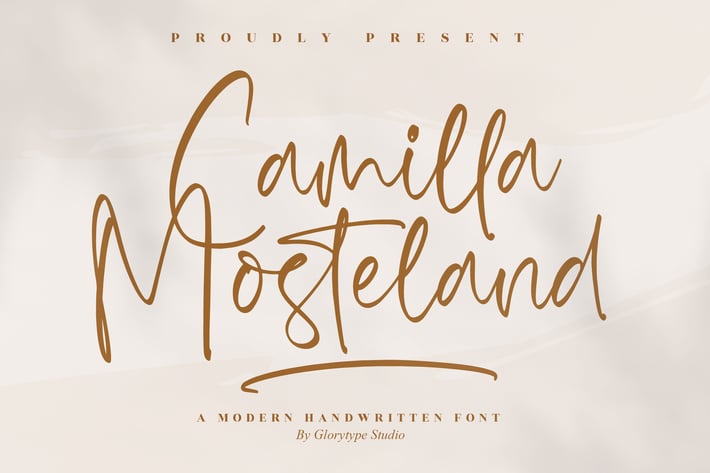
Camilla Mosteland Handwritten Font
Camilla Mosteland is a modern handwritten script that marries effortless pen flow with elegant contrast. Its sweeping ascenders, generous loops, and natural baseline deliver a refined but friendly voice that reads beautifully at both display and sub-headline sizes. Use it to add warmth, personality, and a premium, boutique feel across digital and print projects—without sacrificing legibility. From brand signatures to romantic stationery, Camilla Mosteland brings a polished, handcrafted touch.
+ Uppercase & lowercase characters
+ Numbers & punctuation
+ Beautiful ligatures & stylistic alternates
+ Smooth kerning for even spacing
+ Multilingual support
+ Logos & brand signatures
+ Wedding invitations & event stationery
+ Social media posts & highlight covers
+ Product packaging & labels
+ Posters, quotes & prints
+ Beauty, fashion & lifestyle branding
+ Business cards & thank-you cards
+ Website hero text & banners
Signature elegance—handwritten warmth with modern polish.